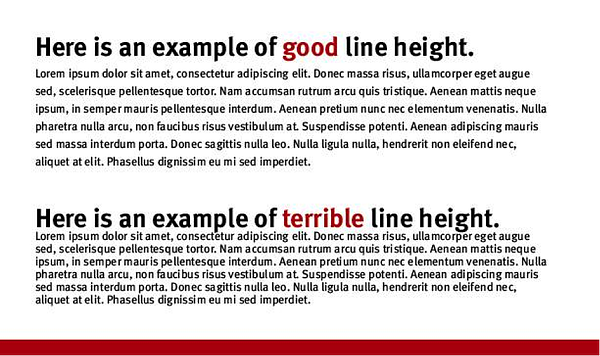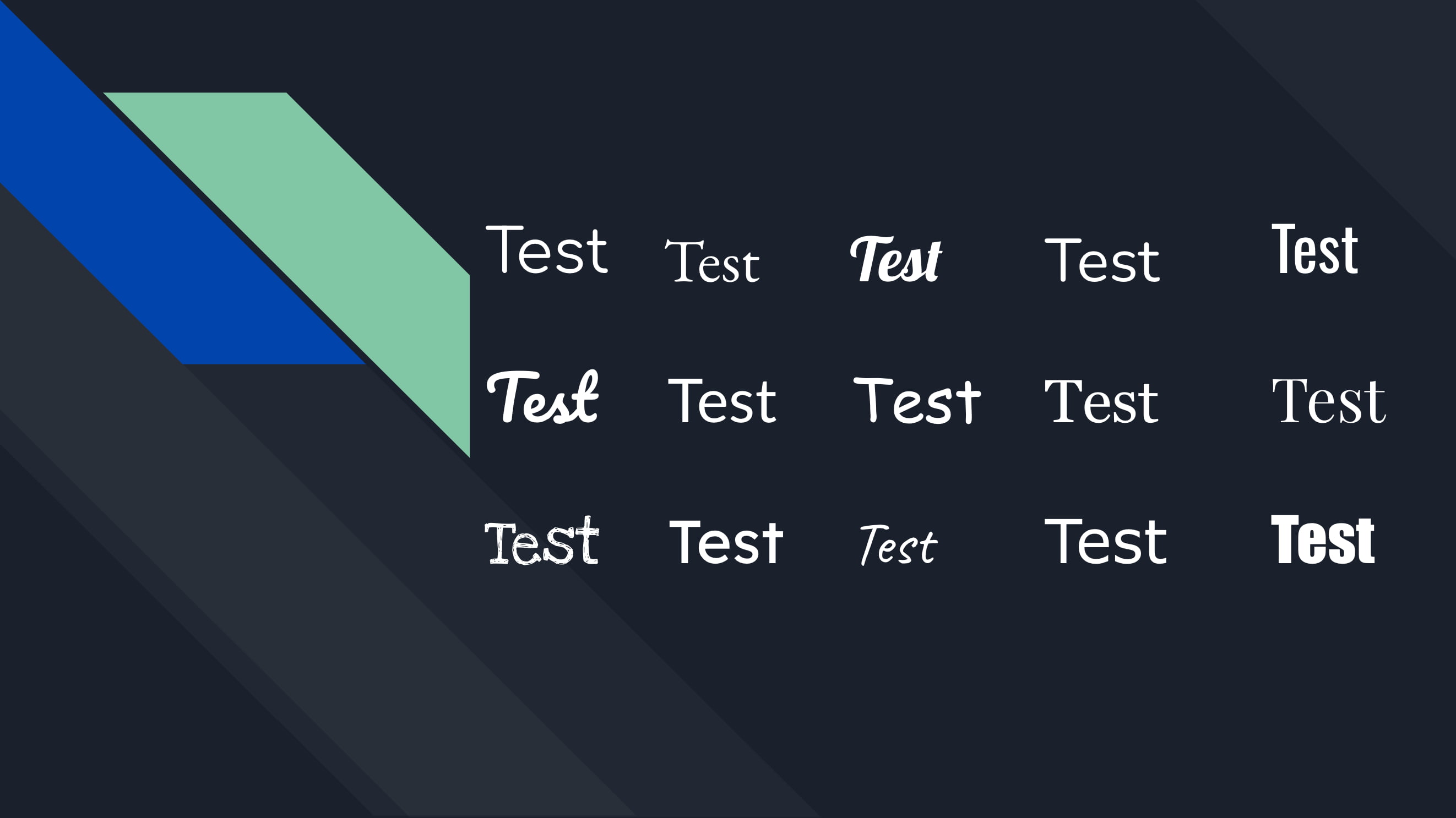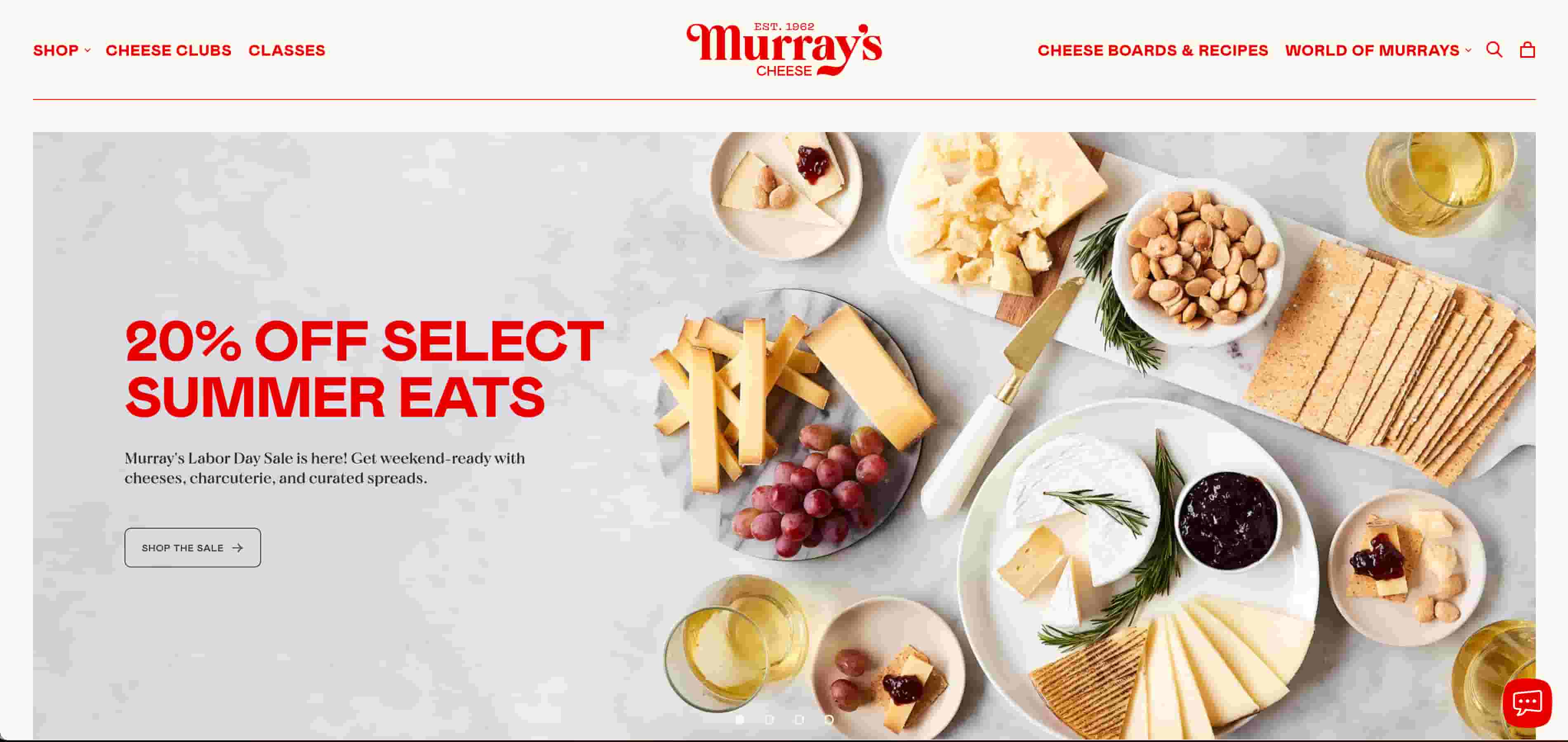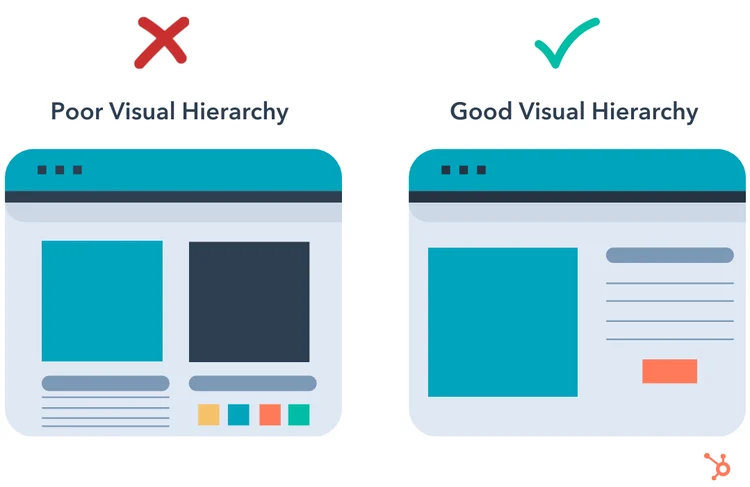
Well-crafted typography can capture attention, instill emotion, and reinforce your brand message. Choosing a font for your marketing material should never be left to chance¡ªthere are a number of strategic considerations to be mindful of in selecting your perfect typeface.
How to Choose the Right Font
- Convey your brand message.
- Find inspiration and study the use of typography.
- Choose your font delivery service.
- Compare typefaces side-by-side and see what feels right.
- Identify the visual hierarchy of your website to determine what fonts are needed.
- Choose fonts for legibility.
- Fine-tune your fonts for readability.
- Choose the proper font size.
- Pay attention to line height and paragraph spacing.
- Use contrast to your advantage.
- Test for readability and legibility across devices.
1. Convey your brand message.
¡°Typography is like fashion or furniture. With rare functional exceptions, the world doesn't need new clothing or furniture designs, but people want to look different or evoke a particular feeling or fit with a particular look, and there are trends and styles.¡± -
Start by drawing from what you want your brand voice to sound like and your organization's values. If you're a fun company, choose a fun font like to enhance that personality. If you want to be perceived as modern and sleek, choose fonts that support that aesthetic such as .
It's easy to say "Just pick a font that reflects your brand," but you may still wonder how to distill a short list of potential typefaces from the endless selection at your disposal.
While the final selection often comes down to good taste in design and relies on experience developing visual identities, there are a few simple steps that can help you hone in on the perfect typeface for your brand.
2. Find inspiration and study the use of typography.
When it comes to typography inspiration these three resources constantly feature top-notch typography:
Study the work of other designers and identify which elements of typography ¡°work¡± for your brand. Scouring other designers work for inspiration is nothing to be ashamed of, even the most renowned designers and artists frequently draw inspiration from one another. It's also helpful to understand the to understand how viewers tend to respond to specific types of fonts.
Take , for example. This website uses multiple different fonts to evoke a homey restaurant feel to get you craving its artisanal-style cheeses. The company logo itself is in Barsillago Demi Bold to immediately grab your attention while using rigor mortis regular in the header to convey a more professional feel.
You can use helpful tools such as to analyze and draw inspiration from your competitors, well-known brands, and more.
3. Choose your font delivery service.
If you intend on using your brands fonts consistently across the web you will need to select a font delivery service. Typekit, Google Fonts and fonts.com tend to be the most common. These subscription-based services allow you to access huge collections of fonts, deliver fonts to your web properties, and ensure that fonts consistently render properly in every web browser and on every device.
Once you have chosen the font delivery service that you will use, you can then begin to narrow down your selection of potential fonts from their library. Most of these services have convenient ways to filter fonts by typography characteristics, compare fonts side-by-side, and save your short listed fonts for review.
4. Compare typefaces side-by-side and see what feels right.
Once you have narrowed your selection to a short list of potential font combinations, create a visual that compares all of the options. Seeing your options side-by-side can help compare one combination versus another and hone in on the perfect fonts for your brand. Here's an example of a format you can use.
Working through the font selection process using only black and white helps focus the choice on the attributes of the font rather than being misguided by how color impacts the appeal of one font over another. Color has a significant impact on viewers' psychology and behavior. As a result, choosing fonts and choosing colors are two separate steps in the branding design process.
5. Identify the visual hierarchy of your website to determine what fonts are needed.
For many design scenarios, you will need two fonts: one headline font and one body font. This could be a combination of two font weights, color variations, or two entirely different font families.
The goal is to create a visual hierarchy that allows viewers to quickly scan your marketing material, identify the most important elements, and understand how each element relates to the other components of the page or screen. This is particularly important for inbound marketers. Rather than meticulously reading every word on a page, website visitors often only scan the headlines and focus on what interests them the most.
For this reason, you may end up with a wider variety of font sizes, faces, and colors as you guide the reader's eyes around the page in an intentional way. Go back to your design hierarchy and implement according to your strategy.
While certain design principles are somewhat universal, it takes trial and error to put them into practice in a way that's functional and attractive for your brand.